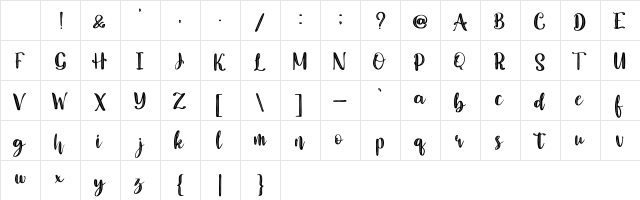
Complete Nathalia Regular glyph index. Displaying only characters natively supported by Nathalia Regular font.
Nathalia is a composed and adaptable typeface that performs quietly and consistently across a wide range of design contexts.